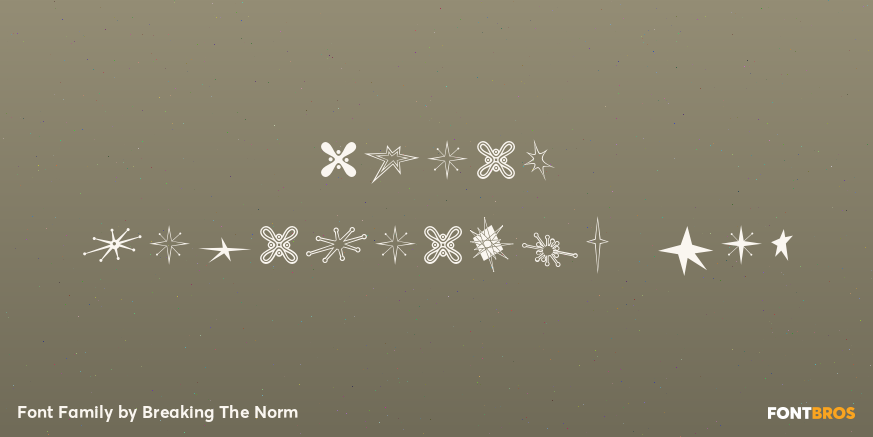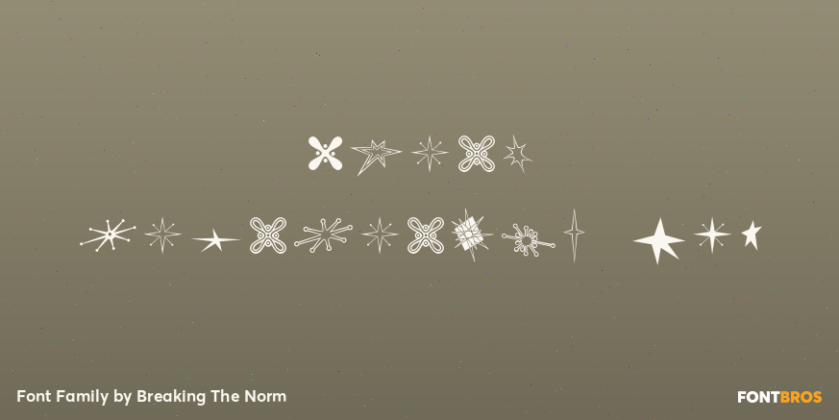
Retro Starstruck BTN
About Retro Starstruck BTN
Retro Starstruck is a dingbat typestyle that captures in a single typeface those retro starbursts and other styles you\’ve seen used all over. A simple and sweet typeface offering easy access to the stars, and allowing you to put some sparkle in your…